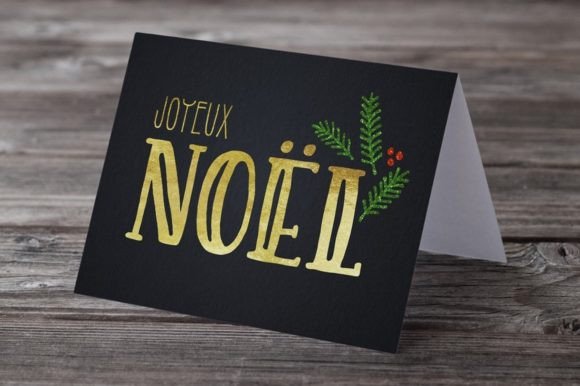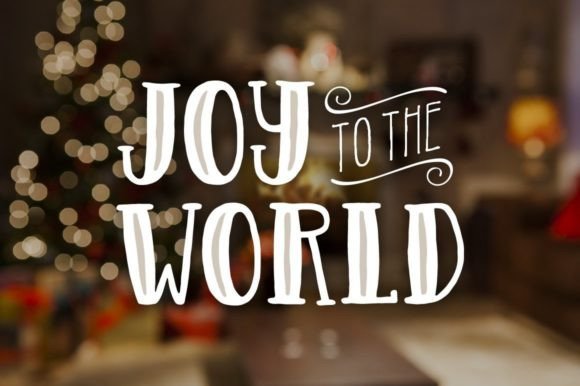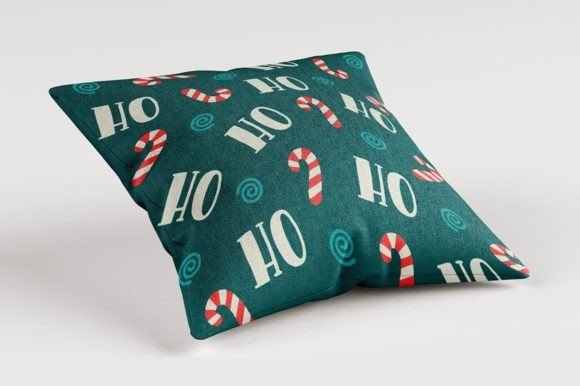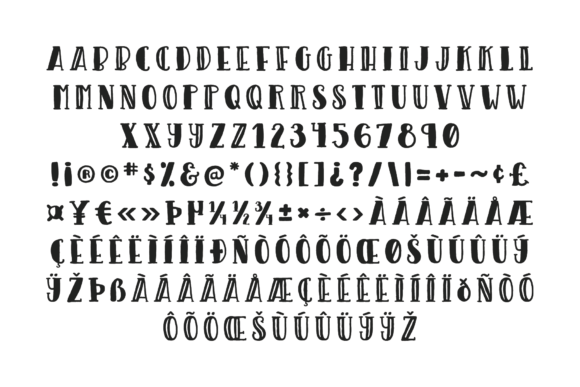
Cedar Font: The Perfect Hand-Drawn Slab Serif Font for Your Creative Projects
Are you a designer, crafter, or DIY enthusiast looking for a unique and charming font to add a personal touch to your projects? Look no further than Cedar Font, a hand-drawn slab serif font that exudes a homemade feel perfect for a variety of creative applications. In this article, we’ll explore the features and benefits of Cedar Font, and how it can elevate your designs and crafting projects.
What is Cedar Font?
Cedar Font is a beautifully crafted hand-drawn slab serif font that boasts a charming, homemade feel. Its unique character and personality make it an ideal choice for a wide range of projects, from greeting cards and tote bags to mugs, t-shirts, posters, and more. The font’s slab serif design gives it a sturdy, dependable feel, while its hand-drawn nature adds a touch of warmth and personality.
Key Features of Cedar Font
- Hand-drawn slab serif font: Cedar Font’s unique hand-drawn design sets it apart from more traditional fonts, giving it a personal and homemade feel.
- Charming and whimsical: The font’s charming character and whimsical feel make it perfect for projects that require a touch of personality and flair.
- Versatile: Cedar Font is suitable for a wide range of projects, from paper crafts and DIY projects to digital designs and commercial applications.
Cedar Font is a dream come true for designers and crafters who want to add a personal touch to their projects. Its unique character and homemade feel make it perfect for:
- Greeting cards: Add a touch of personality to your greeting cards with Cedar Font’s charming and whimsical design.
- Tote bags and mugs: Create eye-catching and unique designs for tote bags and mugs that are sure to stand out.
- T-shirts and apparel: Use Cedar Font to create custom and stylish designs for t-shirts and other apparel.
- Posters and signage: Add a touch of personality to your posters and signage with Cedar Font’s bold and charming design.
Why Choose Cedar Font?
With so many fonts available, why choose Cedar Font? Here are just a few reasons:
- Unique and distinctive: Cedar Font’s hand-drawn design makes it stand out from more traditional fonts.
- High-quality design: Cedar Font is designed to high standards, ensuring that your projects look professional and polished.
Cedar Font is a hand-drawn slab serif font that offers a unique and charming solution for designers and crafters. Its homemade feel and whimsical character make it perfect for a wide range of projects, from greeting cards and tote bags to mugs, t-shirts, posters, and more. With its high-quality design, ease of use, and great value, Cedar Font is an excellent choice for anyone looking to add a personal touch to their projects.